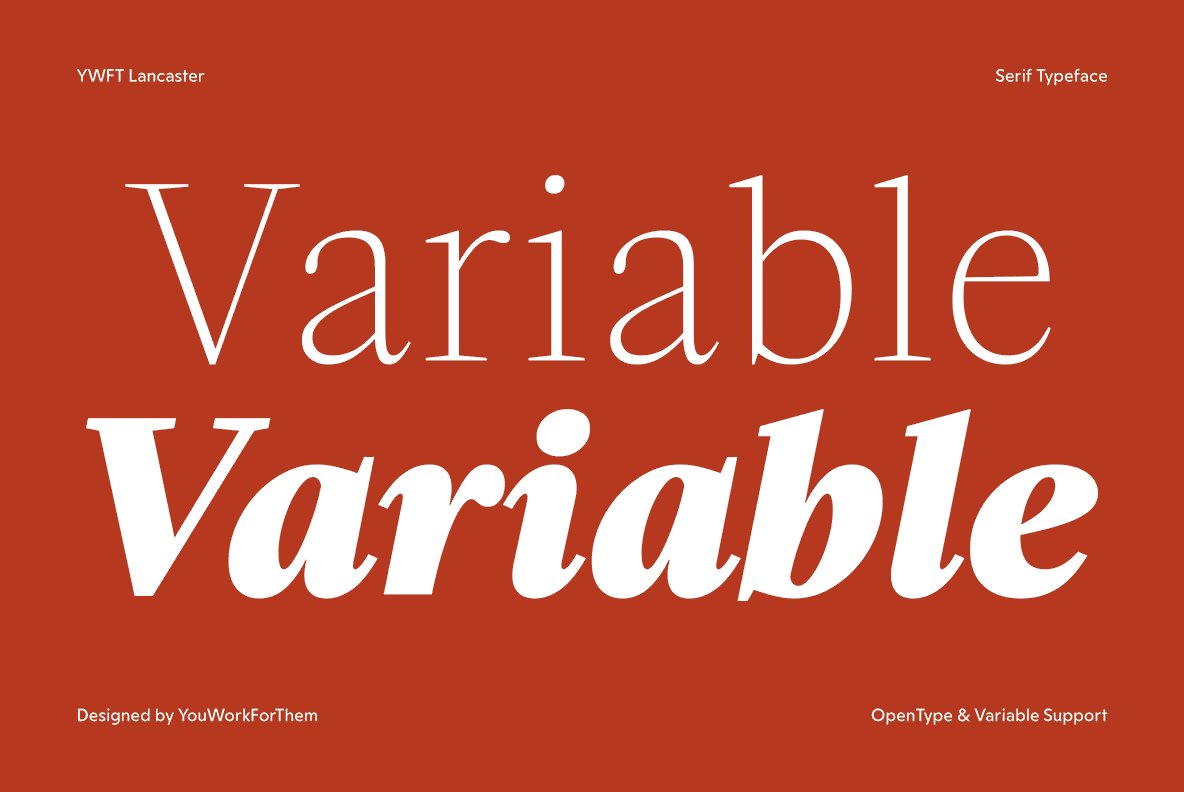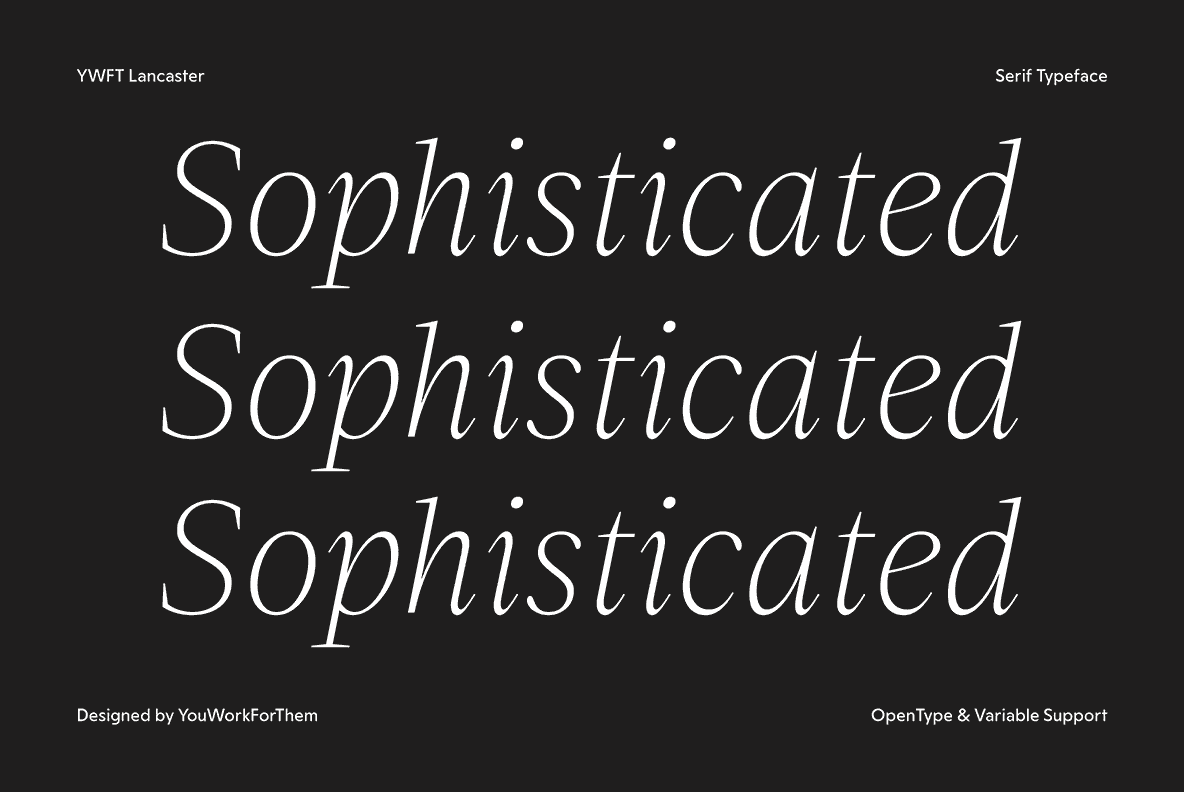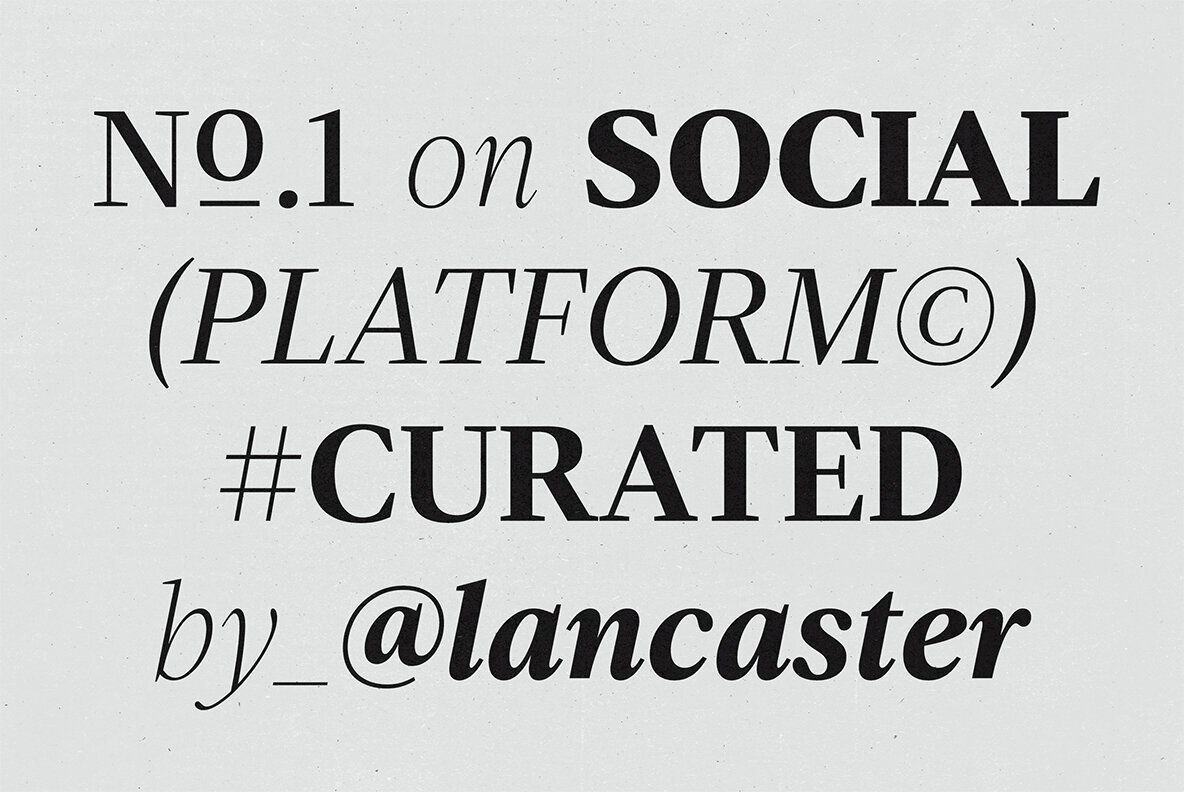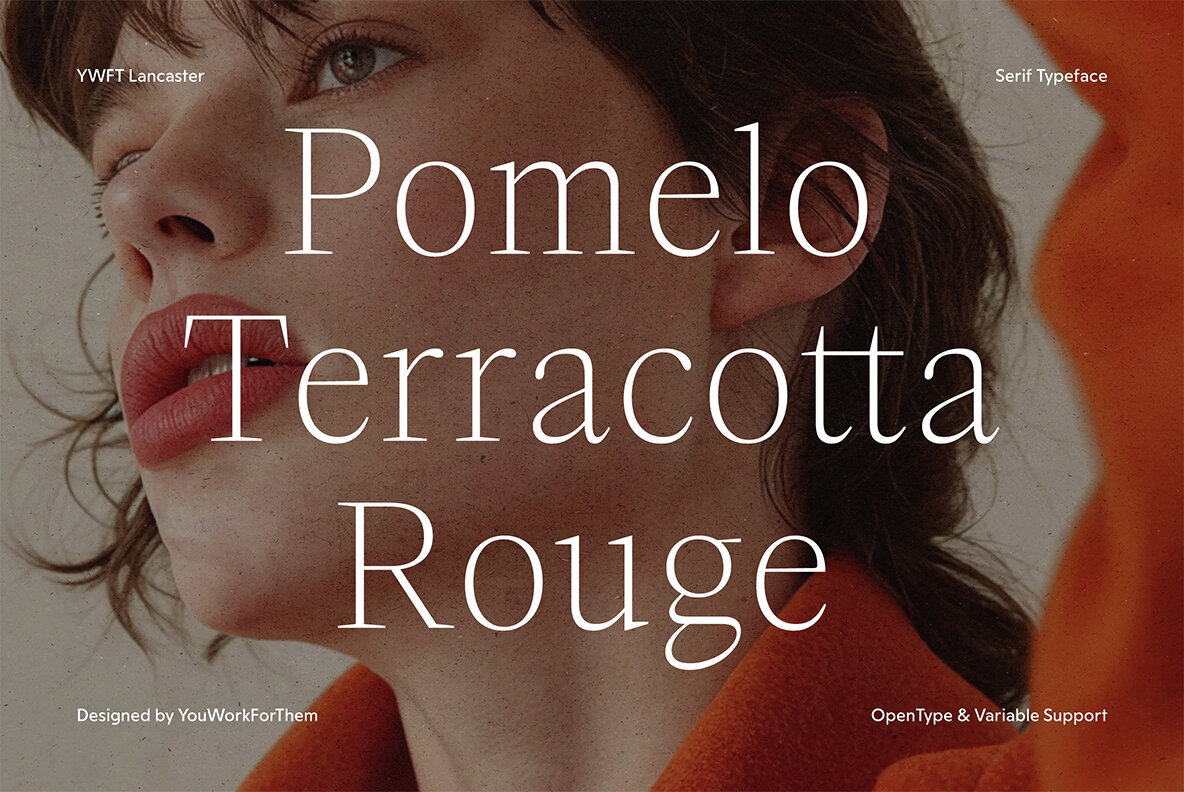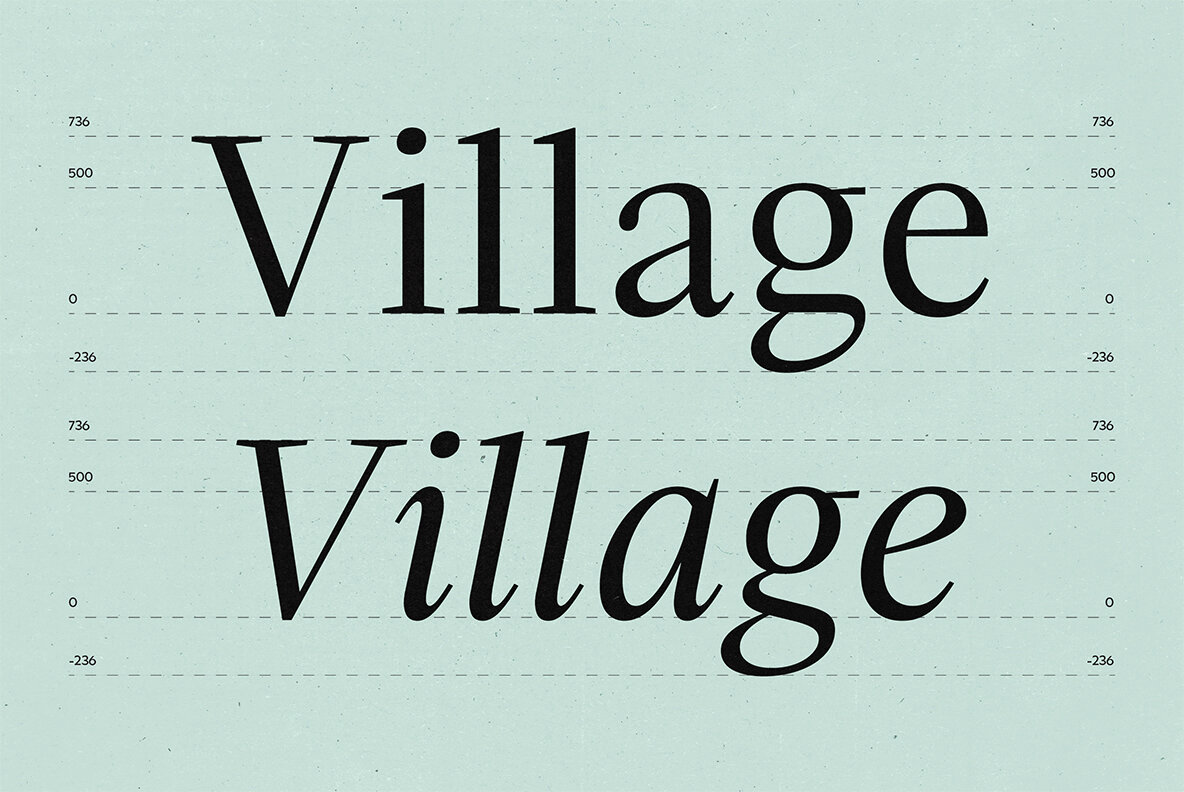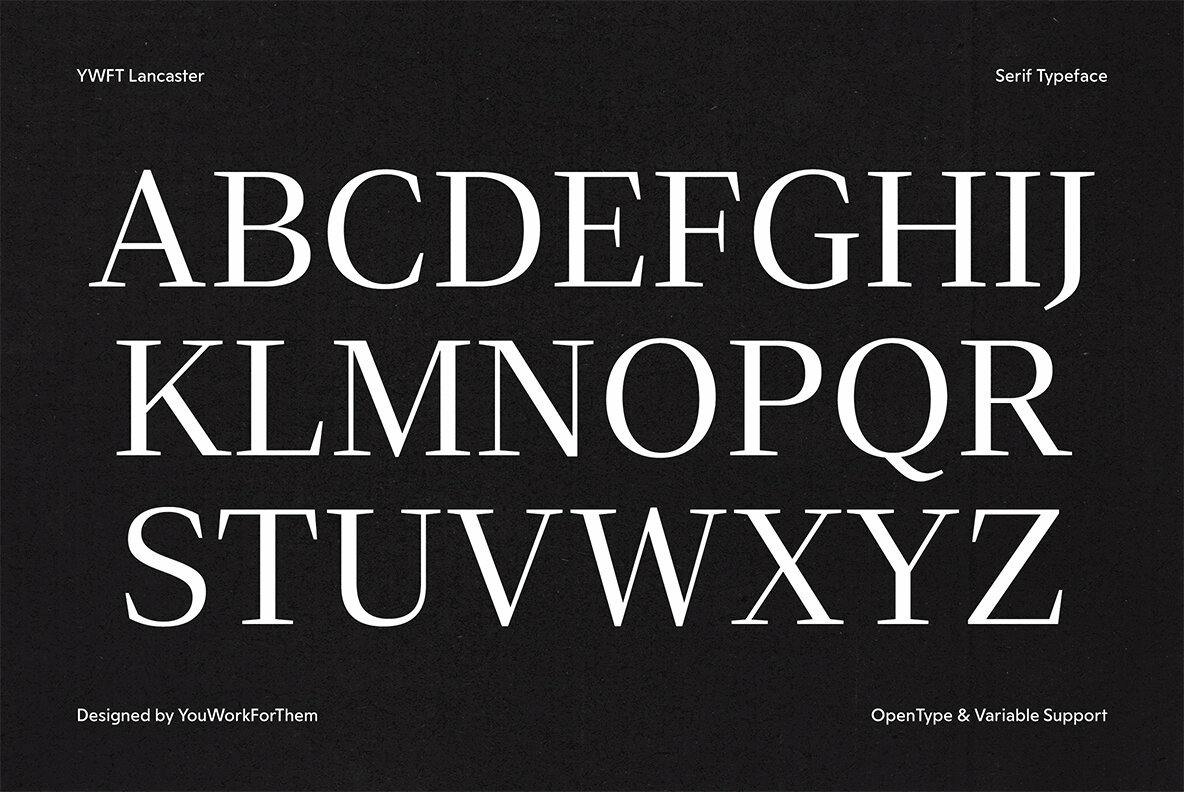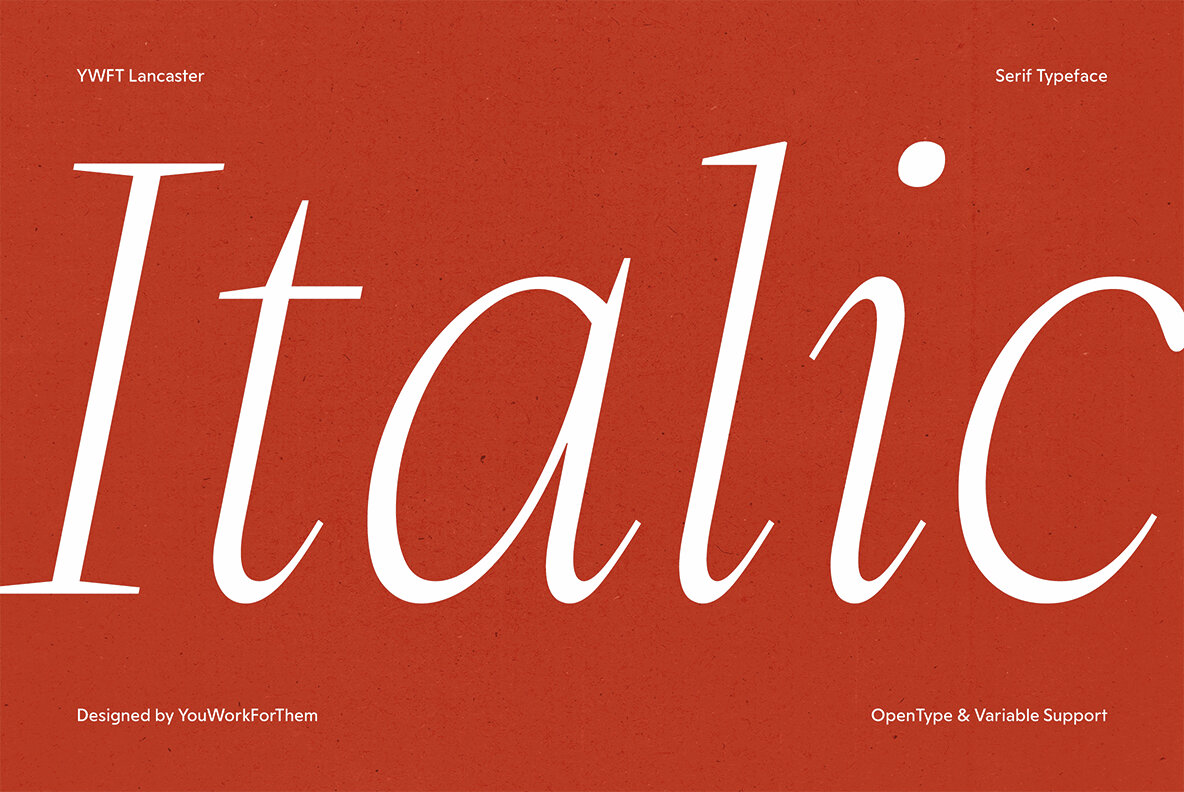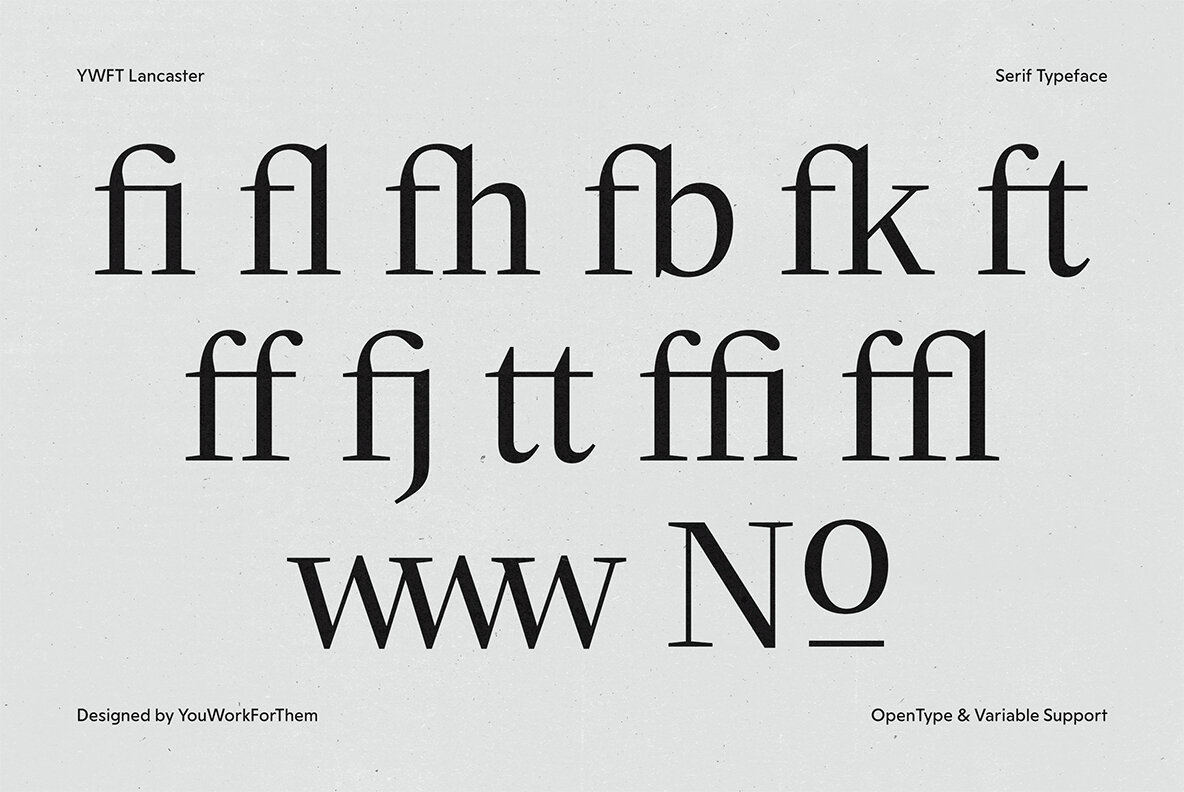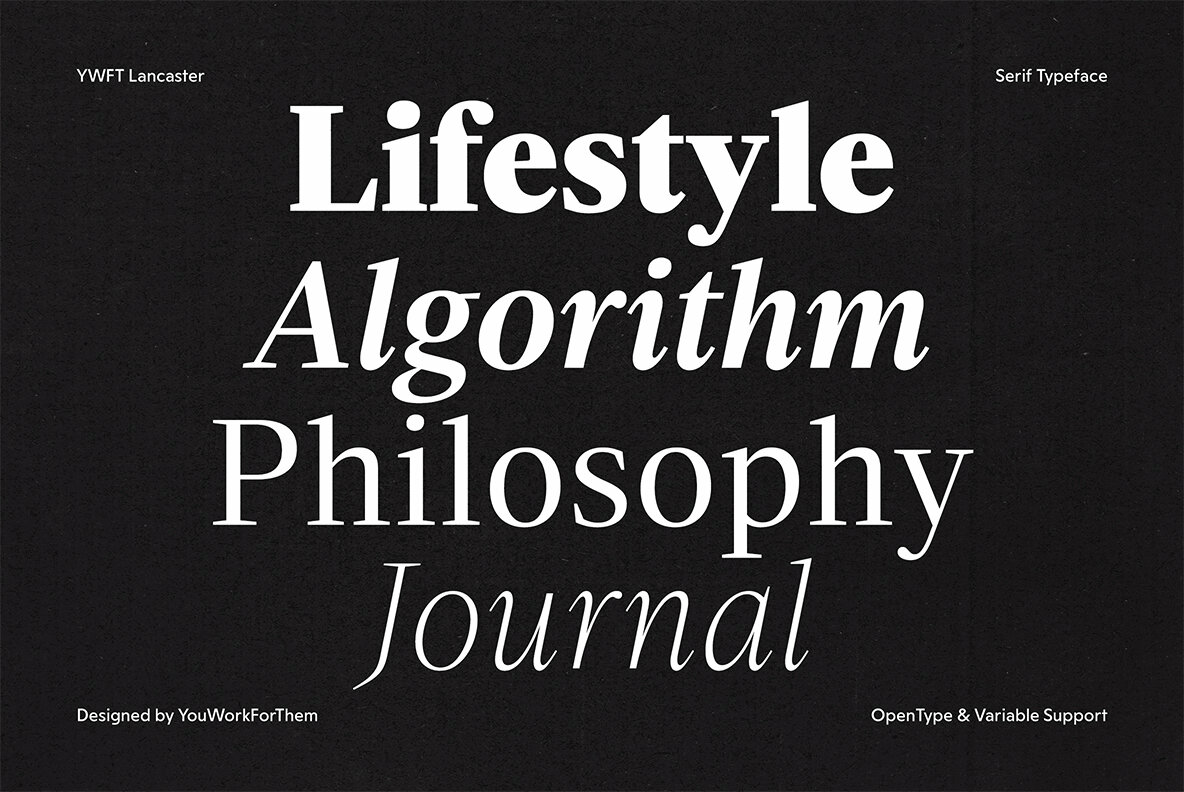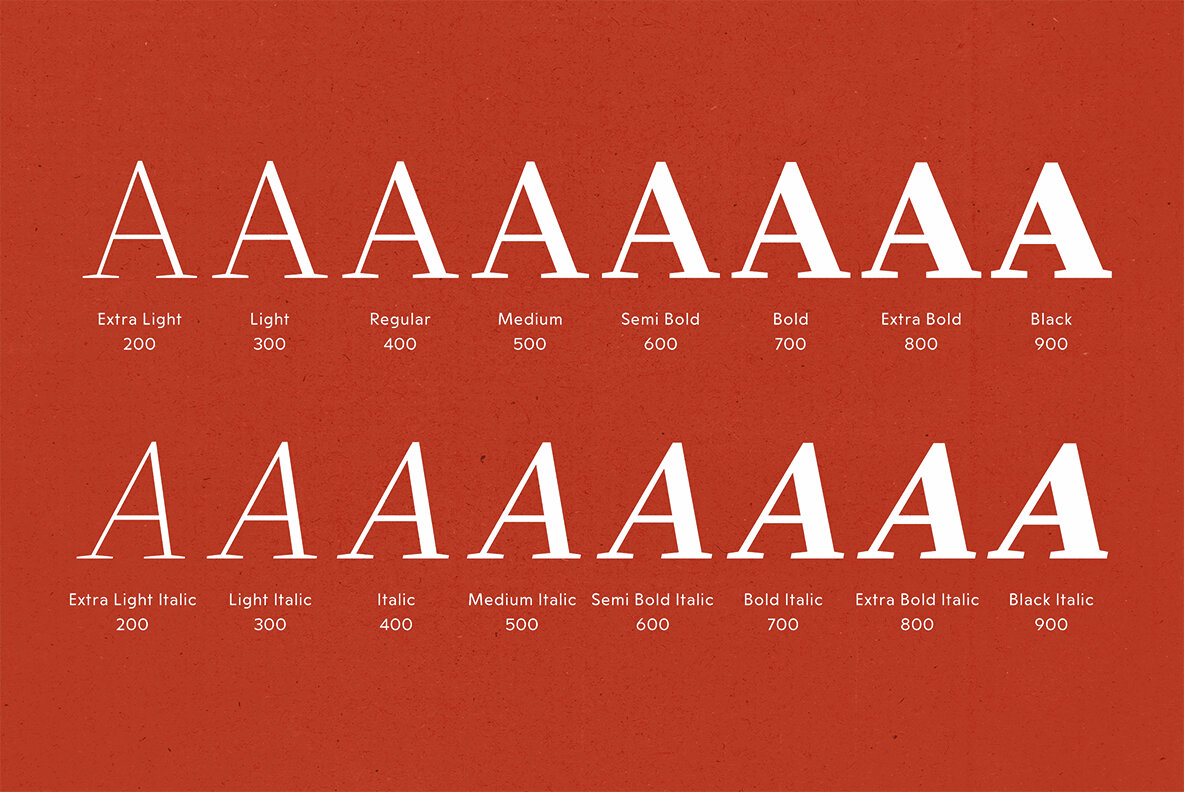
YWFT Lancaster Font
Designed to bring a classic American aesthetic to your projects, YWFT Lancaster is a versatile serif font that exudes sophistication and professionalism. With its timeless appeal and high readability, it is perfectly suited for traditional design work, including editorial layouts, books, magazines, and corporate documents. The refined structure of this typeface also adds an elegant touch to headlines, invitations, and other formal applications. YWFT Lancaster offers multiple weights (with over 500 glyphs per weight), providing a flexible solution for designers aiming for both style and functionality. Whether you're working on a branding project, a literary publication, or a web design that requires a touch of class, YWFT Lancaster meets the demands of high-end design. The inclusion of a variable font option ensures that your digital designs remain responsive and visually consistent across different screen sizes. This typeface is packed with advanced OpenType features, including Alternates, Discretionary Ligatures, and more. These features make YWFT Lancaster not just a typeface, but a powerful tool for creating refined and polished designs. YWFT Lancaster is available exclusively through YouWorkForThem, where we provide easy licensing options at competitive rates. Whether your project is personal, commercial, or enterprise level, YWFT Lancaster ensures that your designs maintain a classic and authoritative presence. Explore more of our extensive collection of serif fonts here.YWFT Lancaster: A Timeless American Serif Typeface
Comprehensive OpenType Features